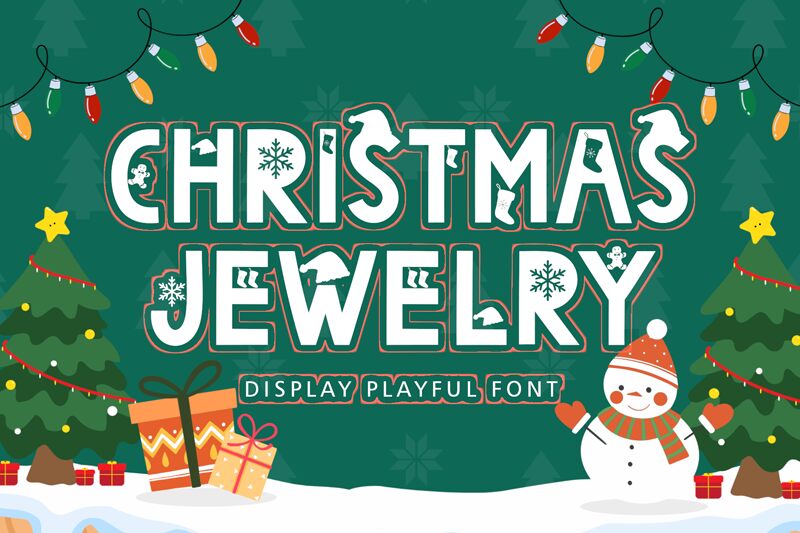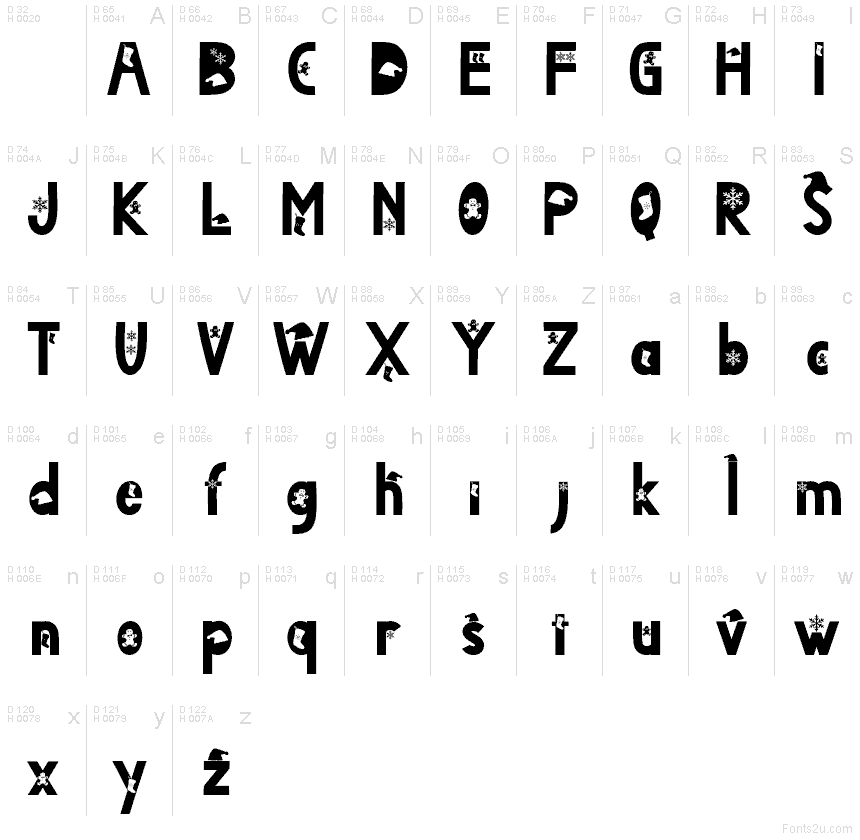
Christmas Jewelry
Christmas Jewelry font by Yoga Letter is a free holiday decorative typeface that looks like it’s been cut from black paper and dusted with snowflakes. Bold, chunky letters carry tiny stars and icy flakes inside their shapes, giving every word a festive, sparkly rhythm while still staying easy to read. The forms feel handmade and slightly irregular, like gift tags snipped with scissors on a kitchen table.
Using Christmas Jewelry, your text instantly feels like a cozy December evening. This free font shines on party invitations, gift labels, social media countdowns, kids’ crafts, seasonal logos, email headers, and storefront signage. Set it large for headlines so the snowflake details really show, and pair it with a clean sans serif for body text to keep your layouts cheerful but balanced.